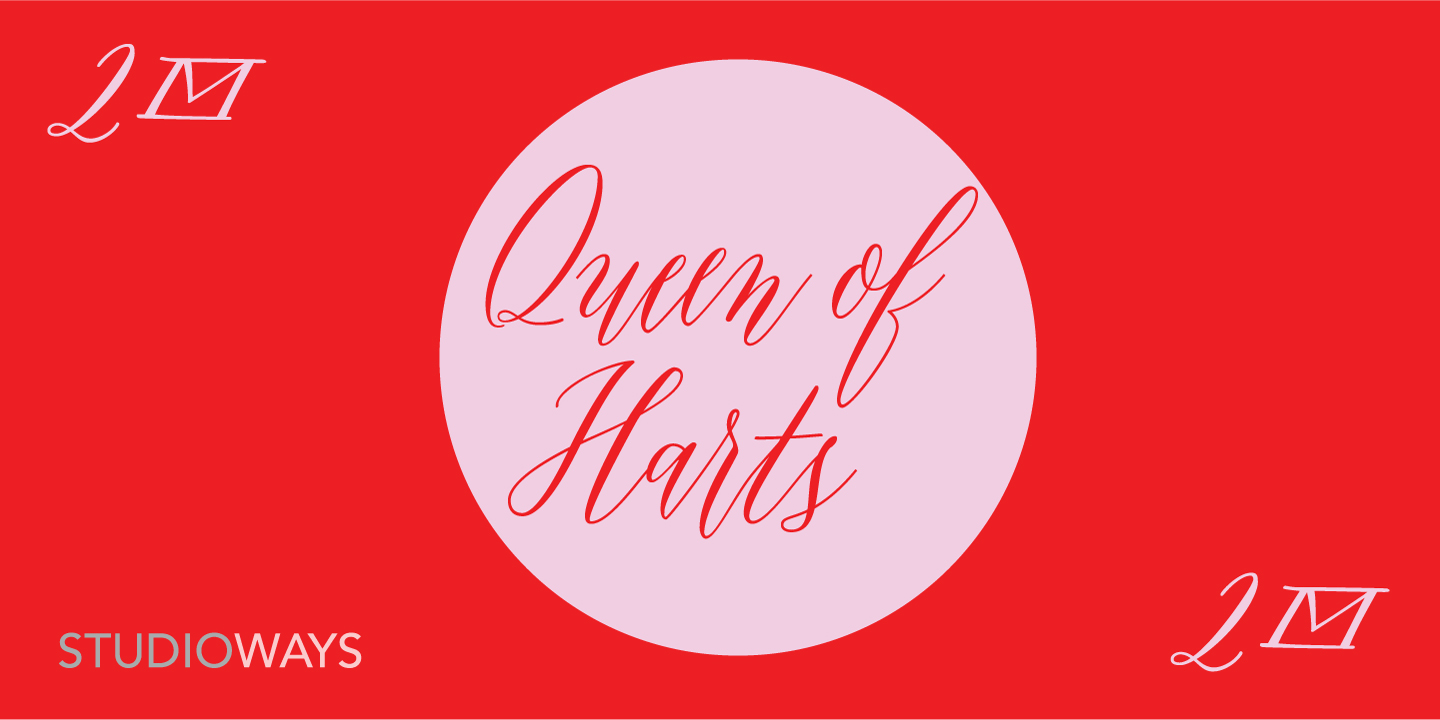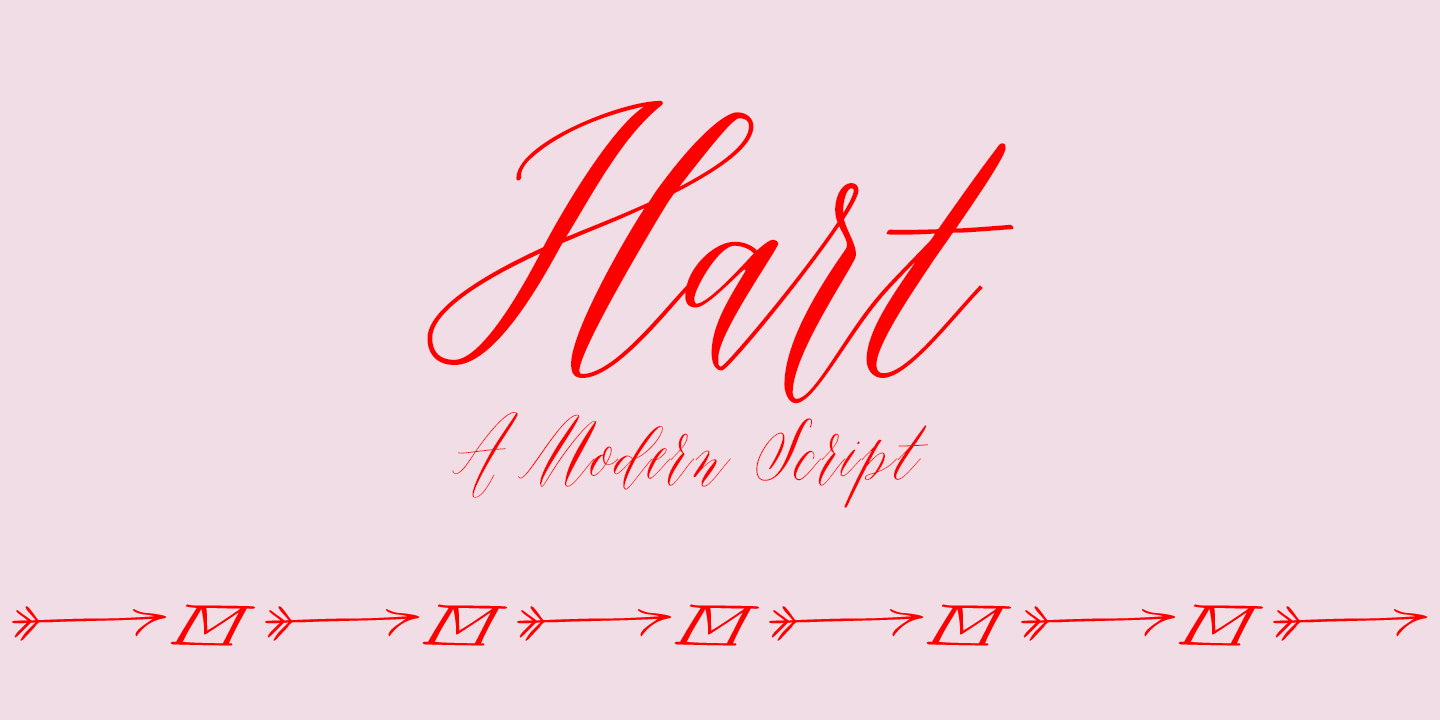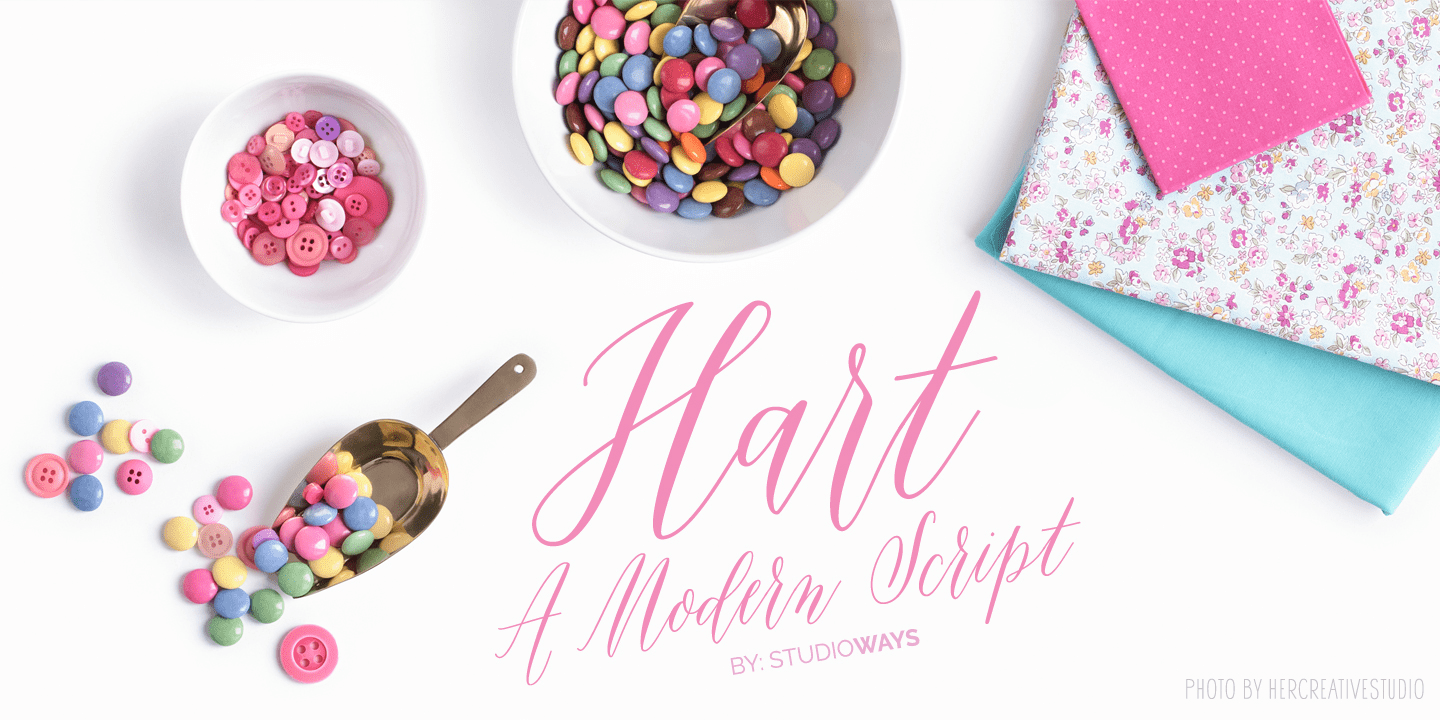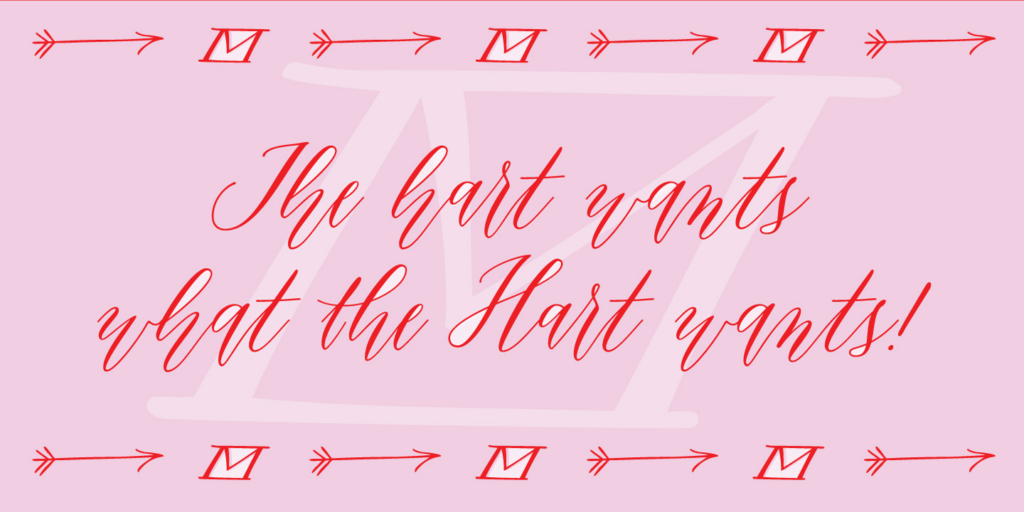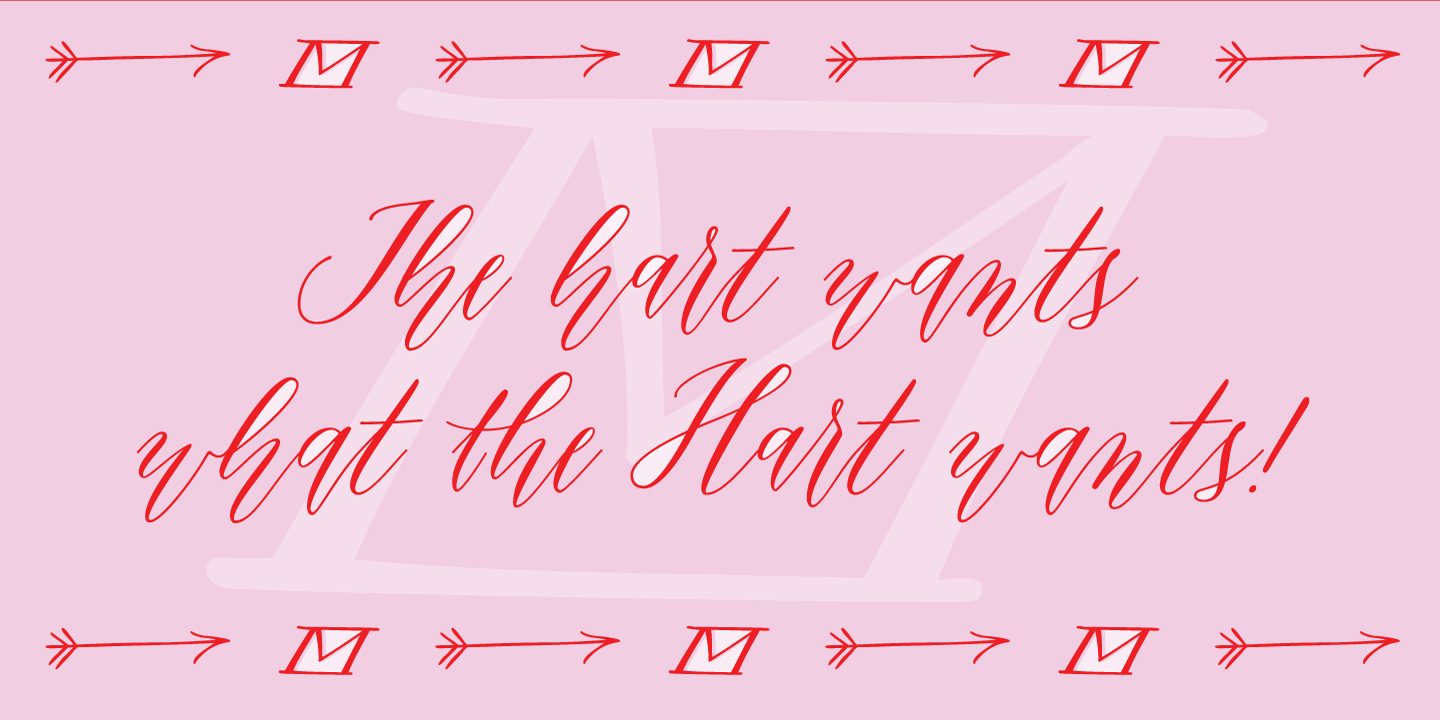
About Hart
Hart is a modern connecting script typeface based on NYC calligrapher Virginia Lucas Hart\’s signature calligraphic style. This fun script is packed with ligatures and alternate letterforms and glyphs so precious that it will melt almost any font lover\’s…